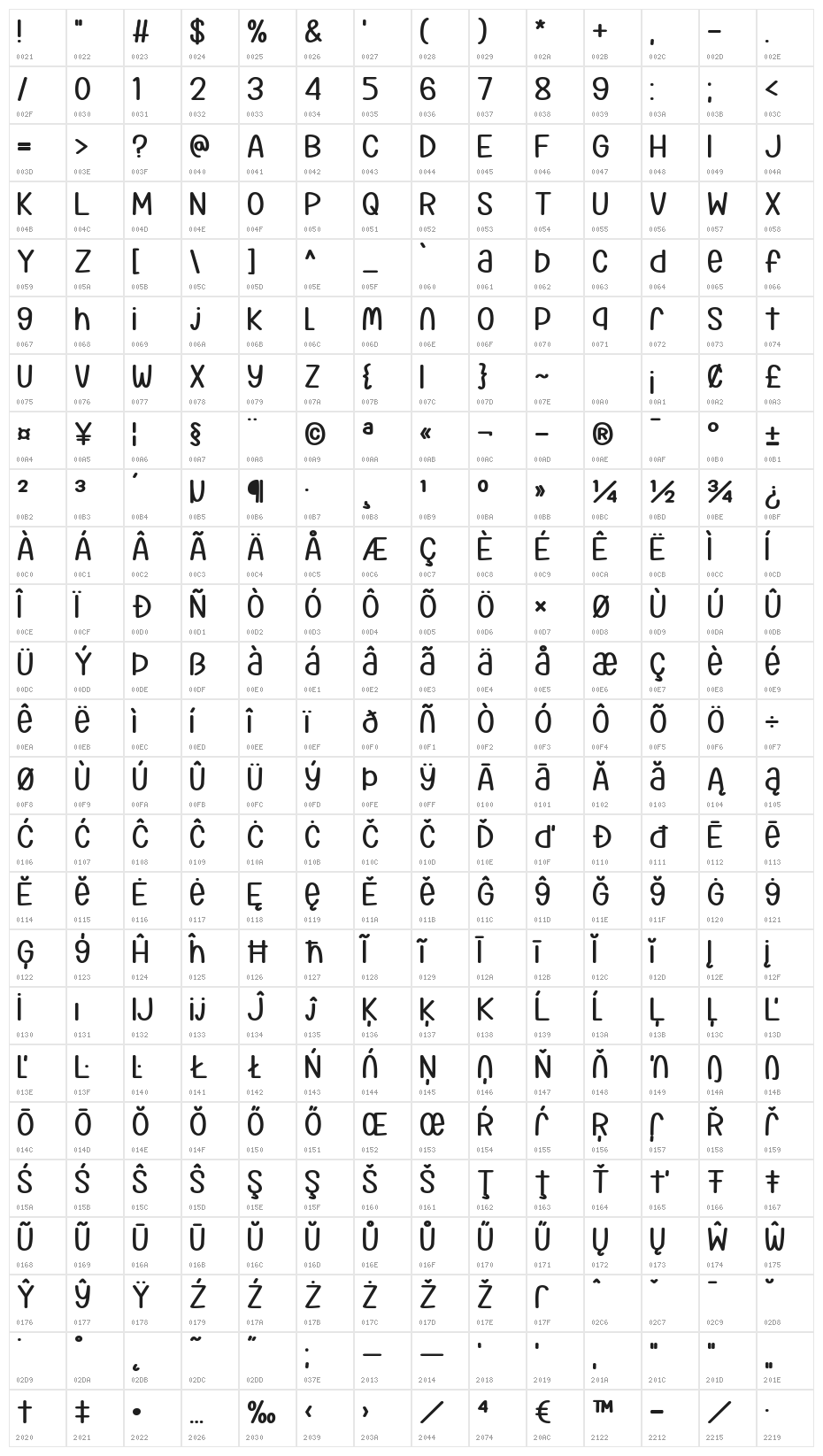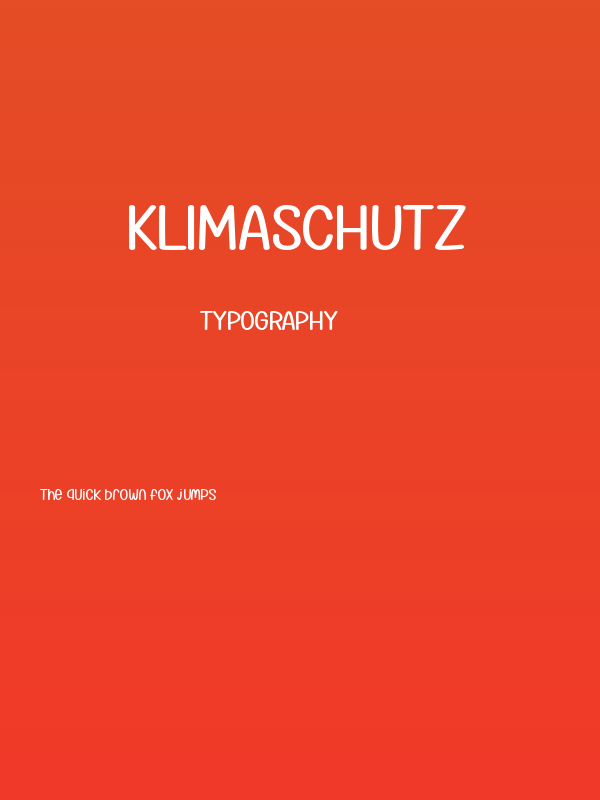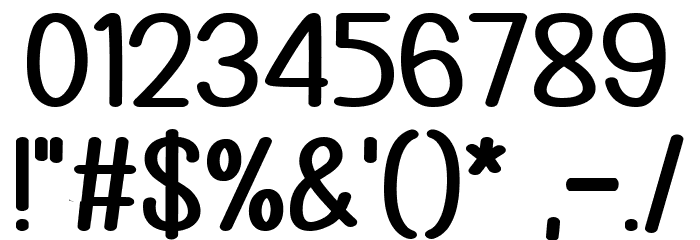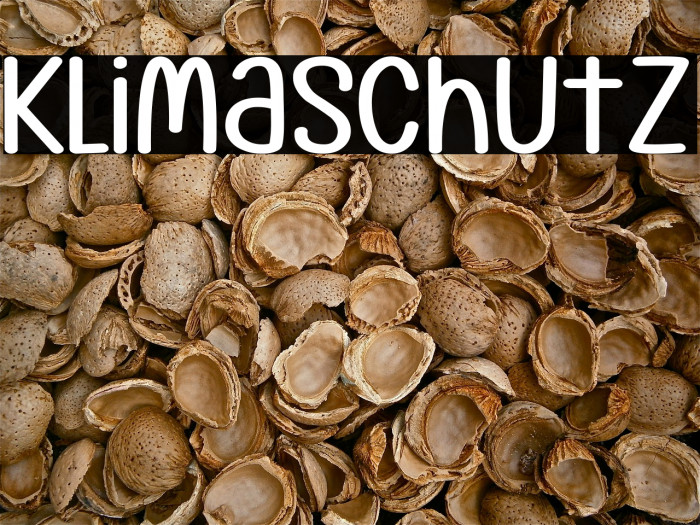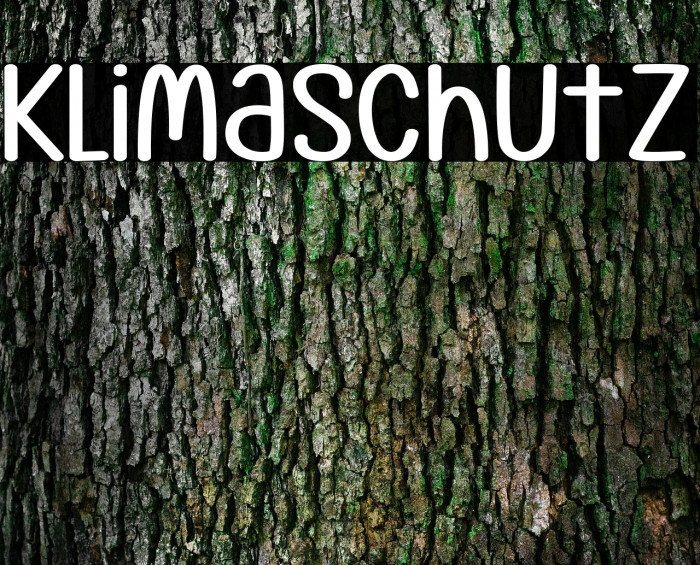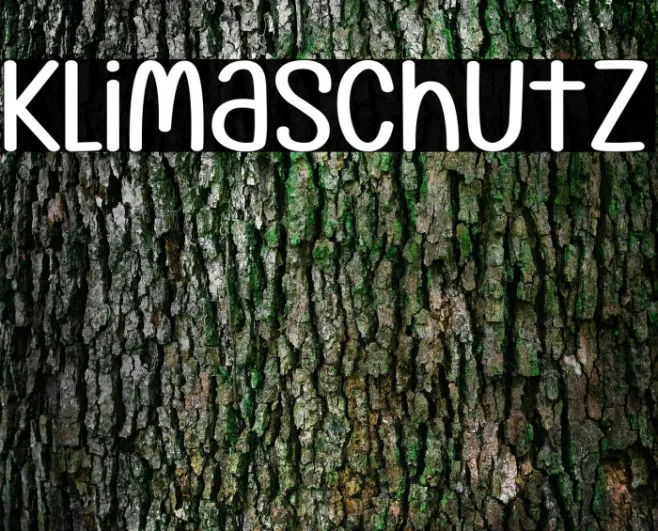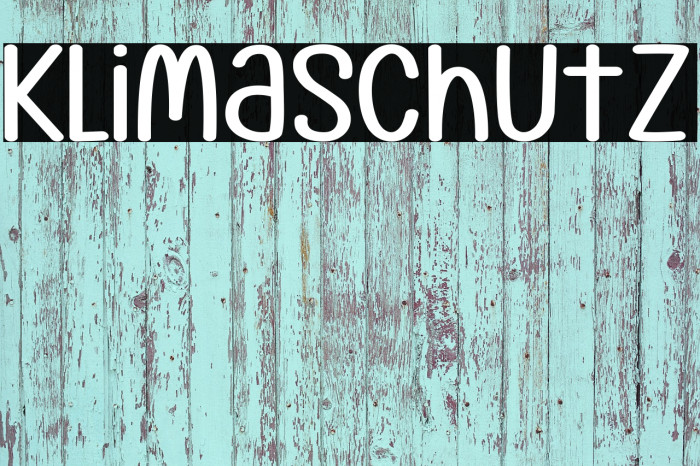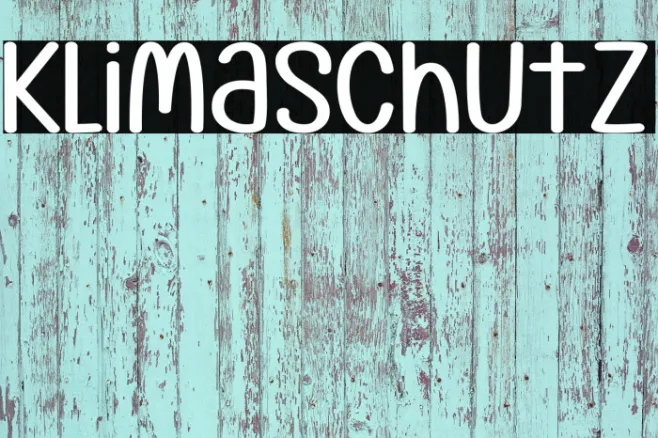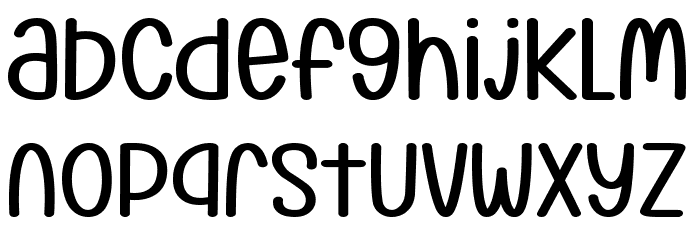
Klimaschutz Font
Klimaschutz Description
This playful and rounded font features a handwritten style with smooth curves and a friendly appearance. The characters are evenly spaced, providing a clean and approachable look. The uppercase letters maintain a consistent height, while the lowercase letters exhibit a slight variation in size, adding to the casual and informal feel. The numerals are clear and easy to read, matching the overall aesthetic of the alphabet. Special characters are included, maintaining the same rounded and approachable style. This font is ideal for projects that require a personal touch or a sense of warmth and friendliness.
| Proposed Projects | Ideal for children's books, greeting cards, playful branding, and casual invitations. |